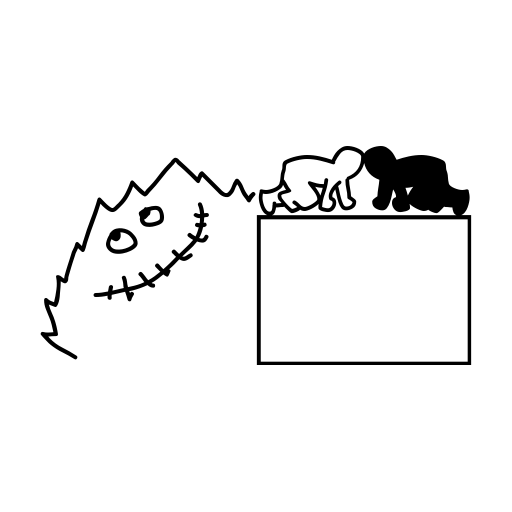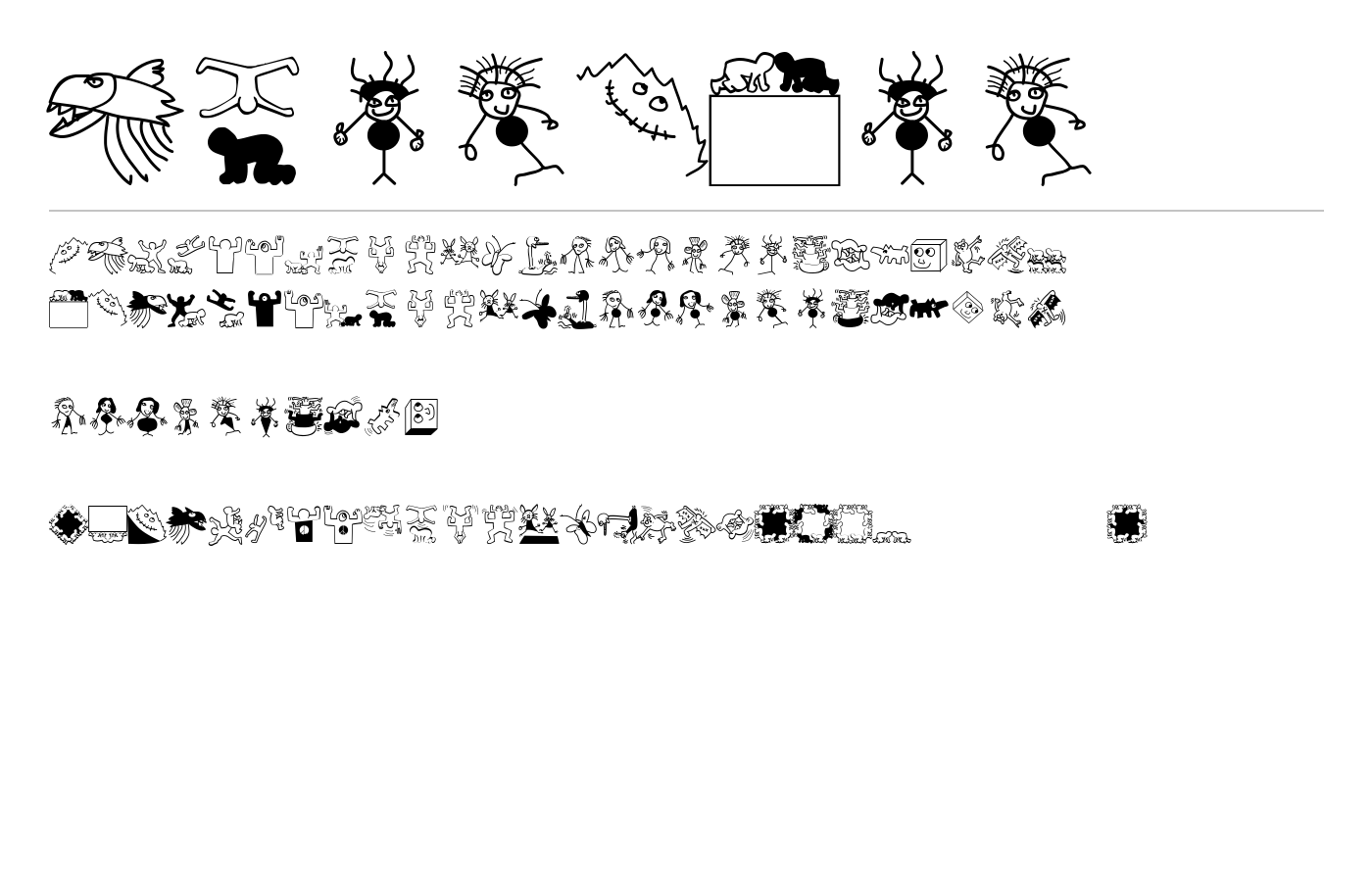
Bitsbats is a playful, decorative symbol font featuring whimsical and quirky cartoon-like figures and shapes. Its unique and informal style makes it ideal for creative projects, children’s materials, and fun branding where a lighthearted, artistic touch is desired. This font adds charm and character by using lively pictorial elements instead of traditional letters.
Bitsbats Font
About Bitsbats Font